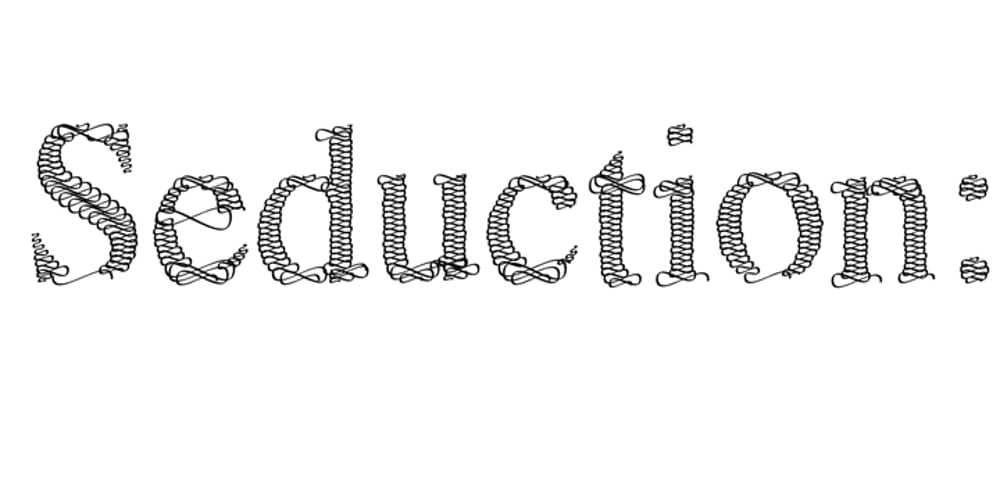
Sevigny Font Family was designed by Harald Geisler and published by Harald Geisler. Sevigny contains 1 styles and family package options. Sevigny is for the poetic eye. It sings to readers – luring and promising – sweet like candy. Even though it is different, you feel that you’ve already seen it. Sevigny seduces you to look. Look twice. Déjà vu Ease the lure. Allow your eyes to follow the rhythmic ribbon. Enjoy the wavy ride on the weavy patterns. Let Sevigny enrich your design ideas. Recommended for Christmas windows, ribbon candy packaging, lingerie labels, book covers, everything that smells good, everything for grown ups, everything for kids, Christmas carol titles, wedding invitations and wedding magazines. Sevigny is offered in three versions: standard latin letters (upper and lowercase), numbers and symbols. Sevigny PRO is packed with extra ligatures, alternate letters, OT features, more symbols, extended support for foreign languages. Sevigny CAPS has only uppercase letters & numbers.